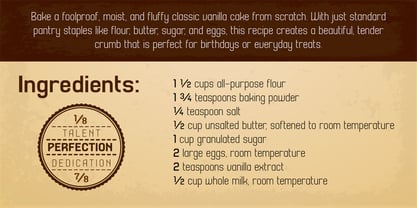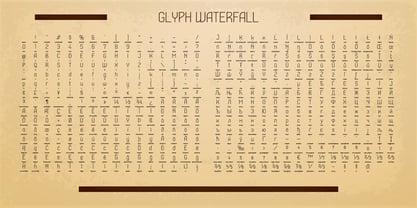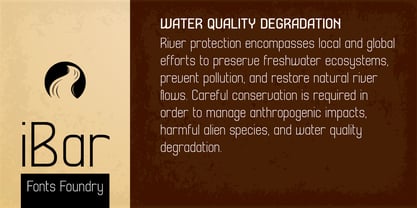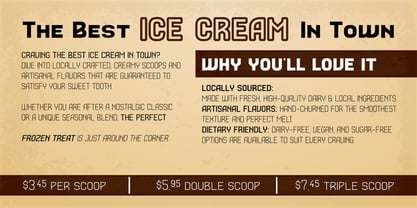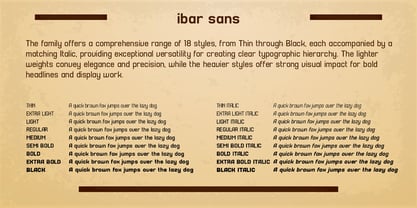
Ibar Sans Variable
Ibar Sans is a modern geometric display typeface that combines clean architectural structure with refined industrial elegance. Designed around tall, condensed proportions and consistent stroke geometry, this typeface delivers a distinctive contemporary aesthetic while maintaining excellent readability across a wide range of applications.
Its minimalist construction, softened corners, and balanced spacing create a sophisticated visual rhythm that feels both technical and approachable. The font's streamlined letterforms make it particularly effective for branding, editorial headlines, packaging, signage, user interfaces, and premium product design where clarity and character are equally important.
The family offers a comprehensive range of 18 styles, from Thin through Black, each accompanied by a matching Italic, providing exceptional versatility for creating clear typographic hierarchy. The lighter weights convey elegance and precision, while the heavier styles offer strong visual impact for bold headlines and display work.
Every weight has been carefully engineered to preserve the typeface's distinctive personality, ensuring consistent proportions, spacing, and balance throughout the entire family. The italic styles introduce a dynamic forward movement while maintaining the geometric integrity of the upright designs.
Key Features
• Modern geometric condensed design
• Clean, minimalist construction
• High legibility for both display and short-text applications
• Consistent proportions across all weights
• 18-style family:
• Thin
• Extra Light
• Light
• Regular
• Medium
• Semi Bold
• Bold
• Extra Bold
• Black
• Matching Italics for every weight
• Strong typographic hierarchy
• Ideal for branding, logos, packaging, posters, advertising, editorial design, digital interfaces, and signage
Elegant, versatile, and unmistakably contemporary, this typeface is designed for designers who seek a clean, distinctive voice capable of adapting from understated sophistication to bold visual expression.